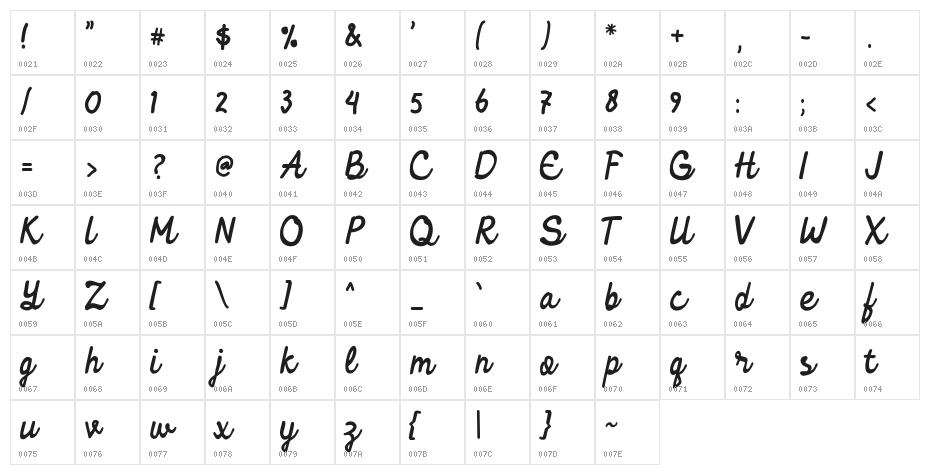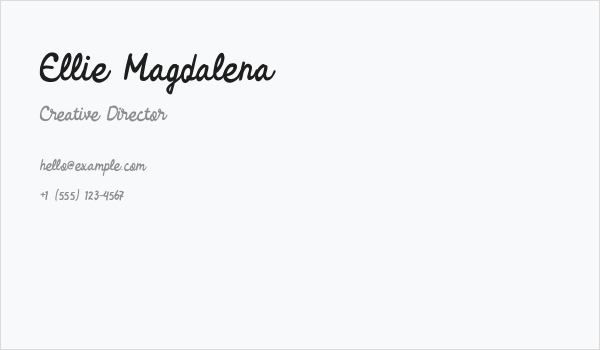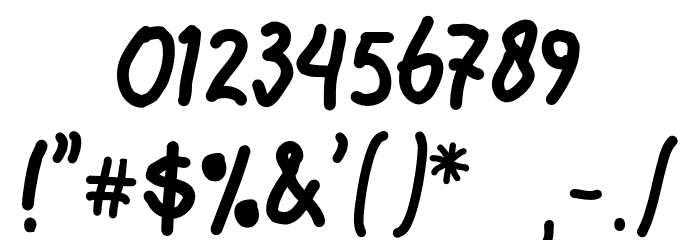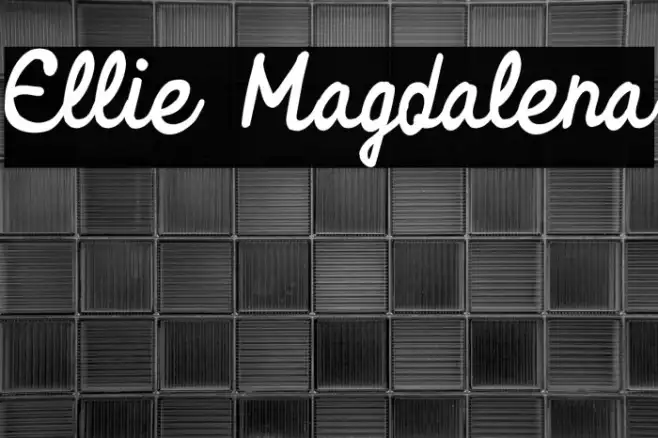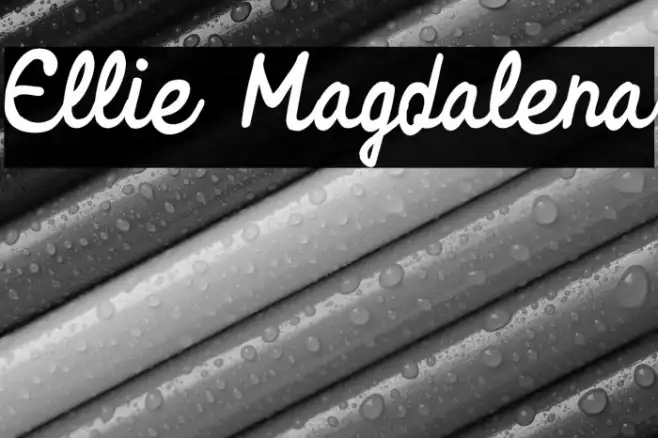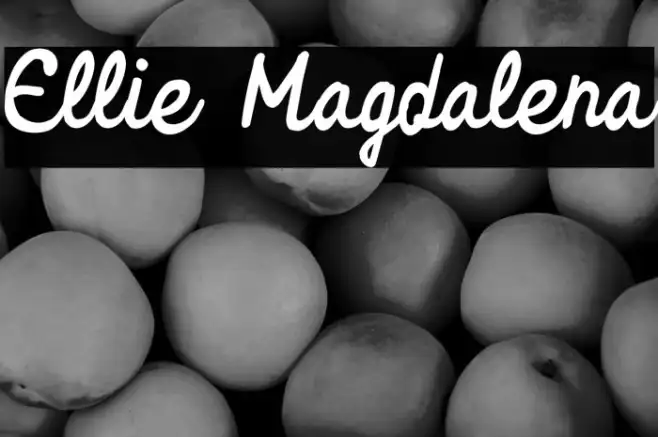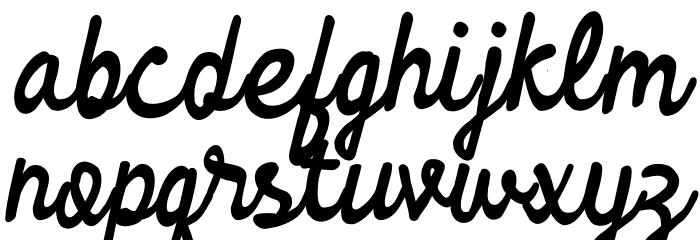
Ellie Magdalena Font
Ellie Magdalena Description
This font features a playful and dynamic script style, characterized by its fluid and connected letterforms. The uppercase letters are bold and slightly slanted, giving a sense of movement and energy. The lowercase letters maintain a consistent flow, with rounded edges and smooth curves that enhance readability. Numbers and special characters are designed to match the overall style, ensuring a cohesive appearance. The font's informal and friendly nature makes it suitable for a variety of creative applications.
| Proposed Projects | Ideal for greeting cards, invitations, personal branding, and playful logos. |